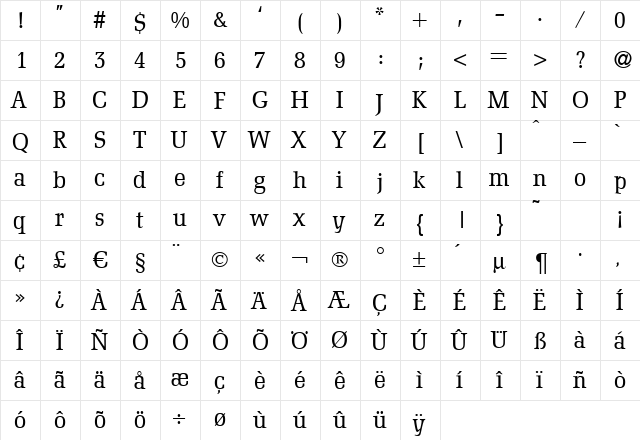
D790-Roman Regular
Design Context for D790-Roman Typeface
D790-Roman takes a measured approach to typography — its balanced proportions and neutral character make it a reliable workhorse for both digital and print work.